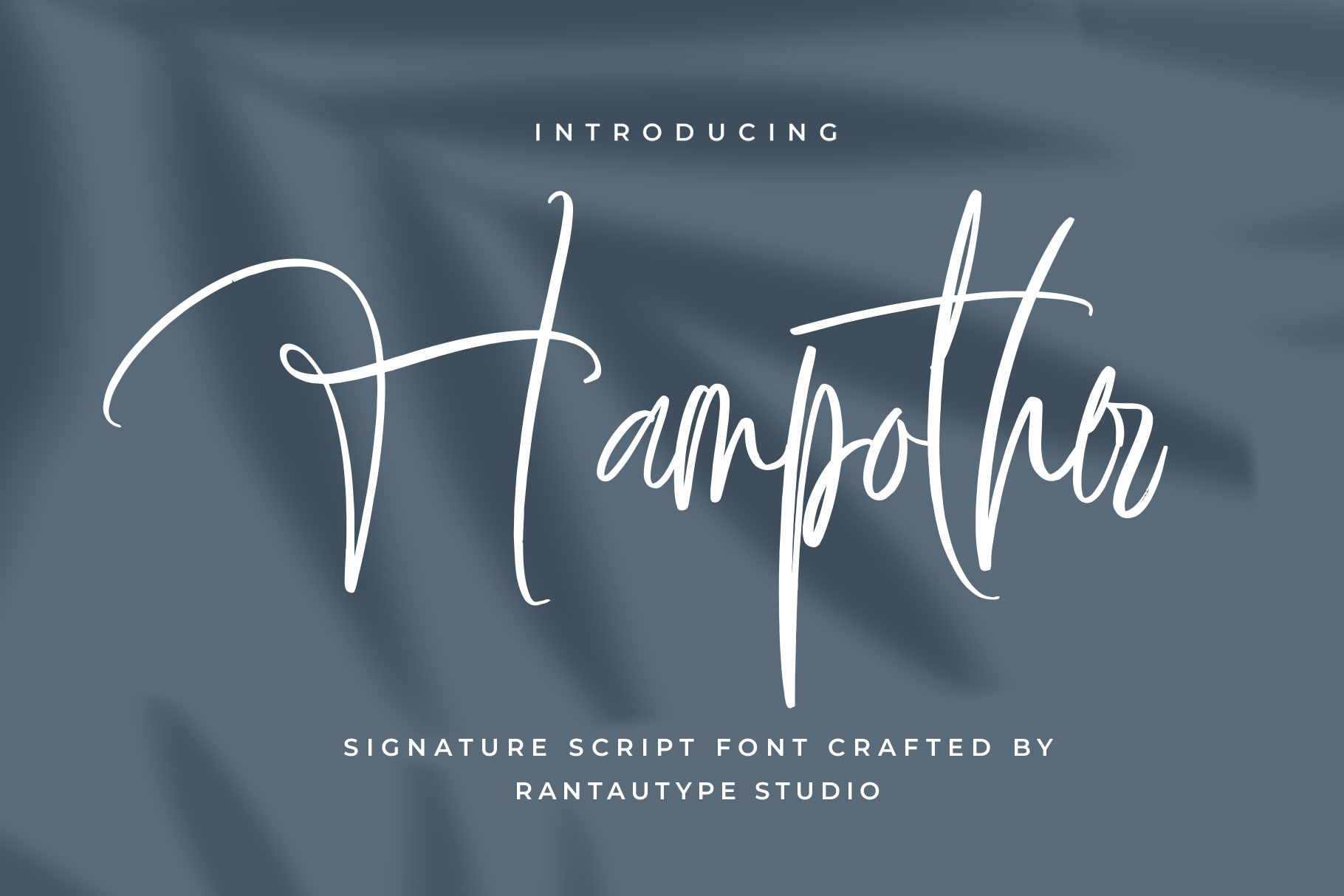
Hampother Signature Script Font
Hampother is signature font with style and trend. Hampother is a perfectly choice for any creative endeavor, creating, modern, lifestyle design such as logotype, title, cover, branding, invitations, wedding designs, display and magazine, social media posts, advertisements, printed quotes, product packaging, corporate brand, product designs, labels, photography, watermarks, special events and any other project with modern touch.
- Alternate and ligature